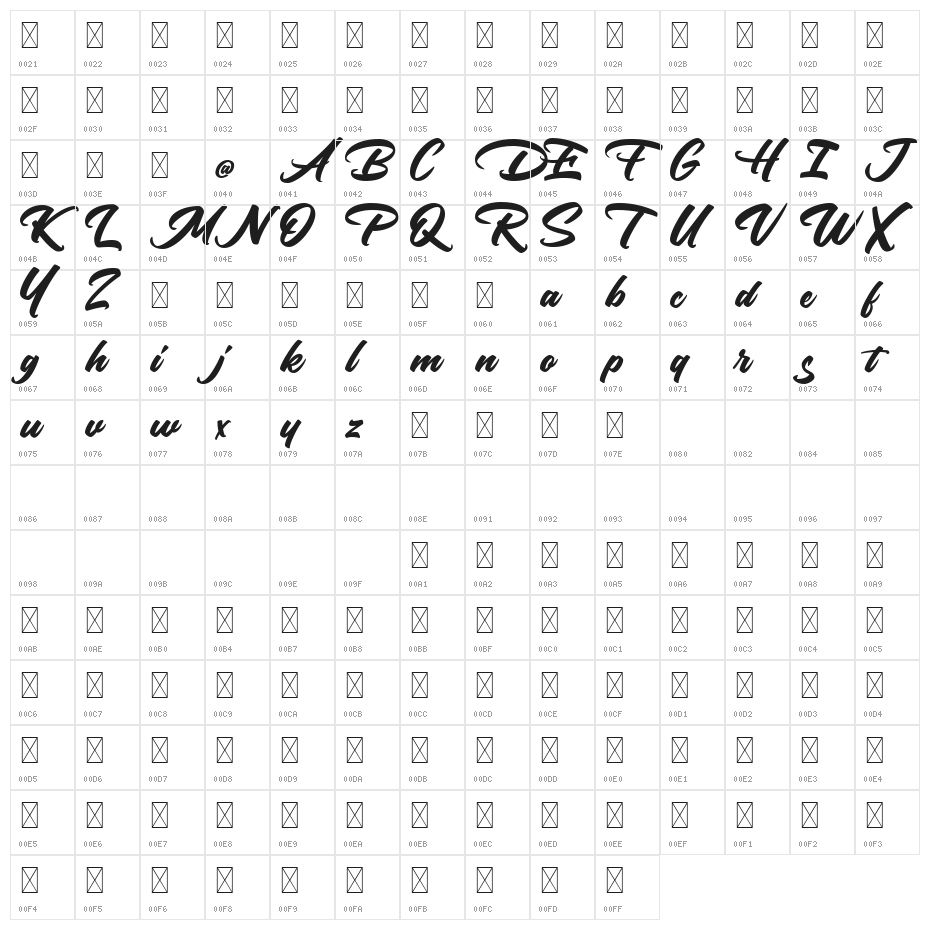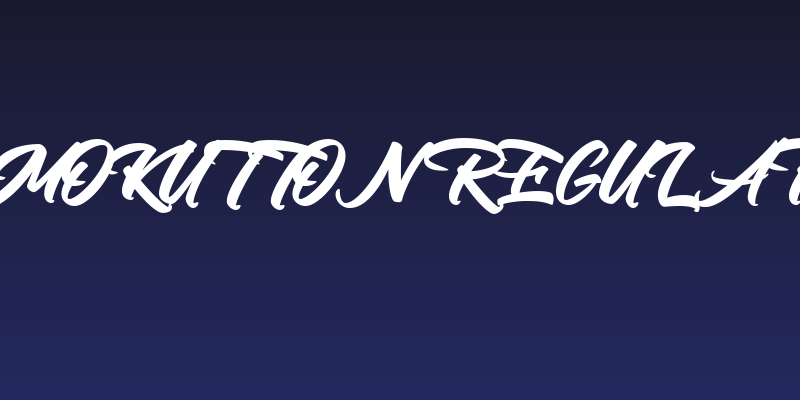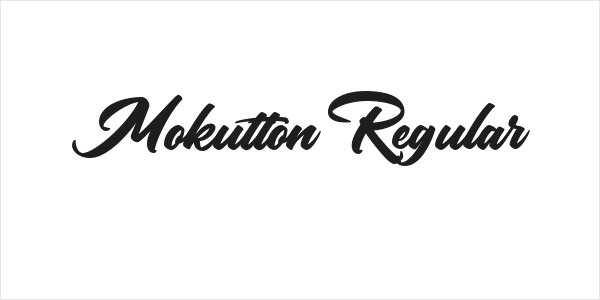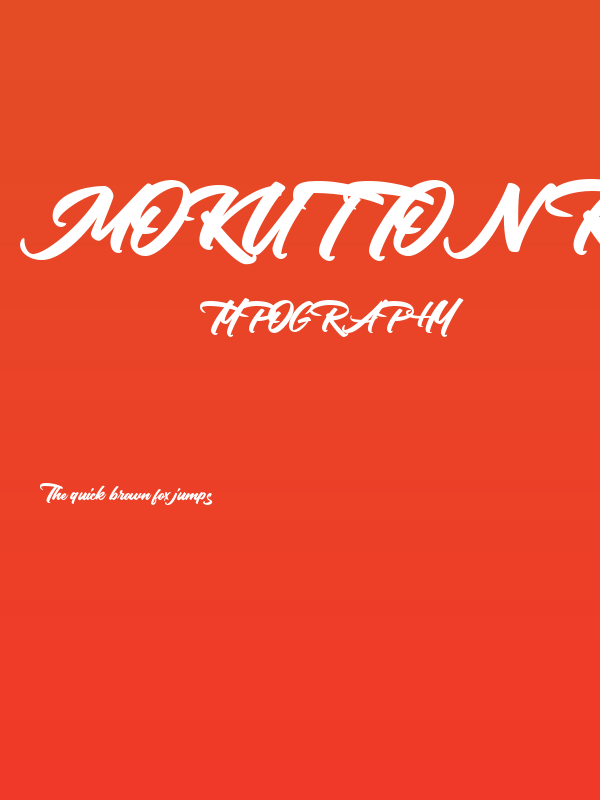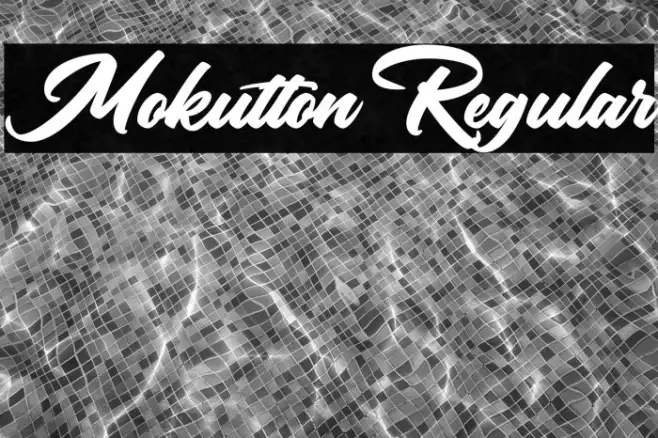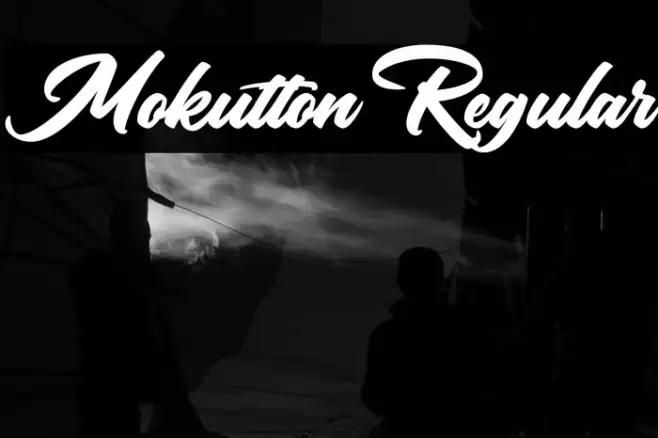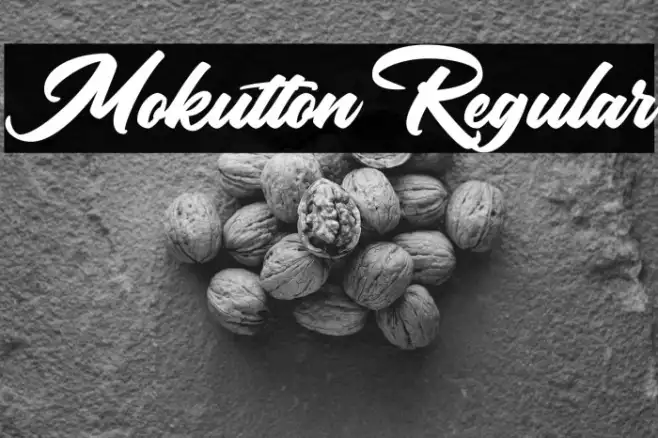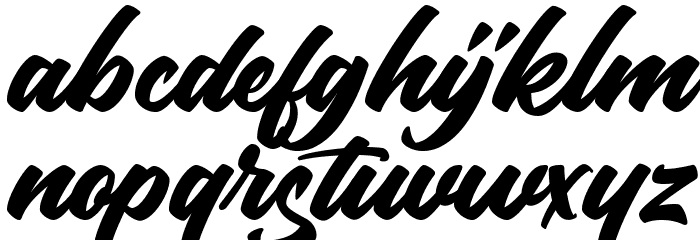
Mokutton Regular Font
Mokutton Regular Description
This font features a bold and expressive script style, characterized by its fluid, cursive strokes and dynamic flow. The uppercase letters exhibit a dramatic flair with sweeping curves and elegant loops, while the lowercase letters maintain a consistent rhythm and balance. The overall appearance is both artistic and modern, making it suitable for creative and eye-catching designs. The font's bold weight and high contrast between thick and thin strokes enhance its visual impact, ensuring readability while maintaining an artistic touch.
| Proposed Projects | Ideal for branding, invitations, posters, and any project requiring a stylish, artistic touch. |